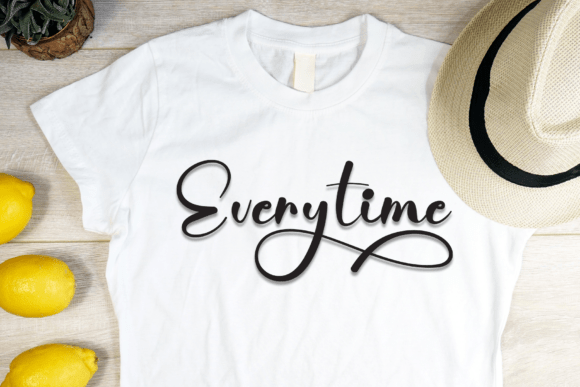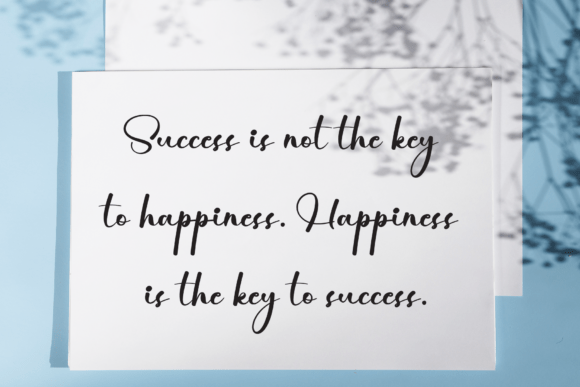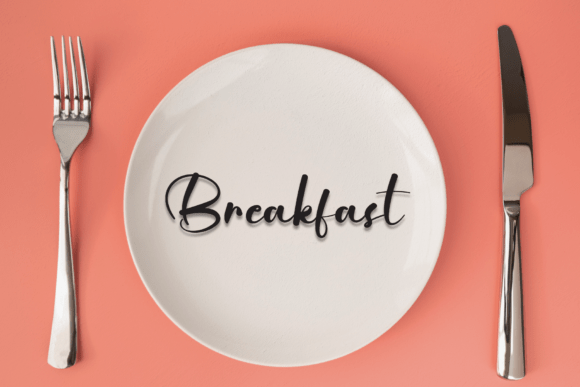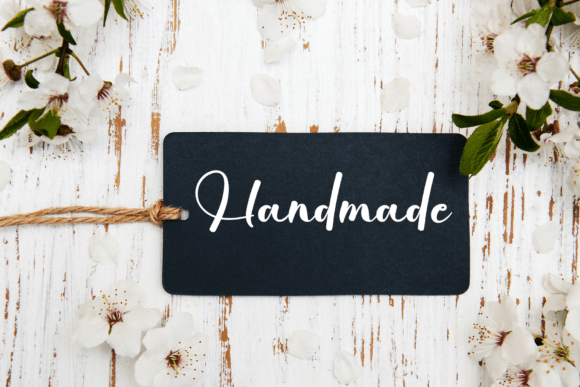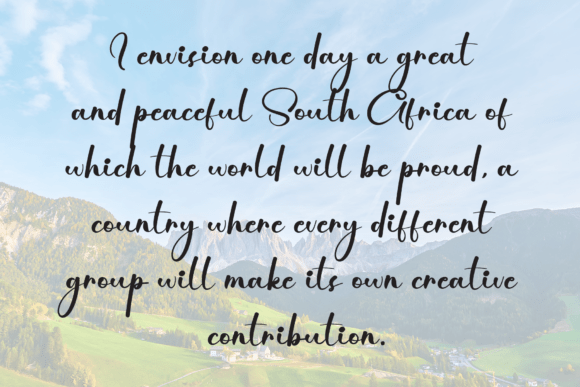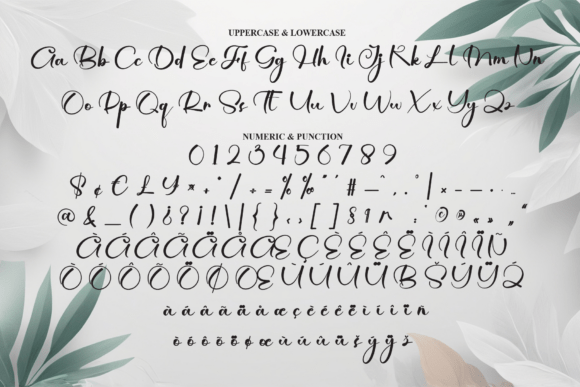
Introducing Angelina Font: The Epitome of Elegance and Playfulness
In the world of typography, few fonts manage to strike a balance between elegance and playfulness. However, Angelina Font is one such exceptional typeface that embodies both sophistication and whimsy. This stylish handwritten script font is designed to add a personal touch to various creative projects, making it a favorite among designers and crafters alike.
The Unique Charm of Angelina Font
Angelina Font is characterized by its flowing curves and natural rhythm, which give it a distinct, charming appeal. Each stroke is carefully crafted to exude a sense of warmth and sophistication, making it an ideal choice for projects that require a touch of elegance. Whether you’re working on invitations, branding materials, or social media content, Angelina Font brings a level of refinement and creativity that’s hard to match.
Key Features of Angelina Font
- Handwritten Script Style: Angelina Font boasts a beautiful, handwritten script style that’s perfect for adding a personal touch to your designs.
- Flowing Curves and Natural Rhythm: The font’s flowing curves and natural rhythm give it a unique, charming appeal that’s sure to captivate your audience.
- Elegant and Playful: Angelina Font strikes the perfect balance between elegance and playfulness, making it suitable for a wide range of creative projects.
- Versatile: This font is versatile and can be used for various design projects, including invitations, branding, social media, and more.
Why Designers and Crafters Love Angelina Font
Designers and crafters love Angelina Font for its ability to add a touch of warmth and sophistication to their projects. Here are some reasons why:
- Easy to Read: Despite its elegant and cursive nature, Angelina Font is easy to read, making it perfect for body text and headings.
- Highly Versatile: The font’s versatility allows designers and crafters to use it for a wide range of projects, from formal invitations to social media graphics.
- Unique and Creative: Angelina Font’s unique design makes it stand out from other fonts, allowing designers and crafters to create distinctive and eye-catching designs.
Using Angelina Font in Your Designs
Angelina Font can be used in various design projects, including:
- Invitations: Add a touch of elegance to your invitations, whether it’s a wedding invitation, birthday party invite, or baby shower announcement.
- Branding: Use Angelina Font to create a unique and memorable brand identity for your business or product.
- Social Media: Elevate your social media graphics with Angelina Font, making your posts stand out in a crowded feed.
- Stationery and Packaging: Add a personal touch to your stationery, packaging, and product labels with this beautiful font.
Tips for Getting the Most Out of Angelina Font
Here are some tips to help you get the most out of Angelina Font:
- Experiment with Font Sizes: Play around with different font sizes to create visual hierarchy and emphasis in your designs.
- Pair with Other Fonts: Pair Angelina Font with other fonts to create a unique and harmonious typography combination.
- Use in Combination with Images: Use Angelina Font in combination with images to create stunning visual effects and add context to your designs.
In conclusion, Angelina Font is a stylish and elegant handwritten script font that captures the essence of sophistication and playfulness. Its unique design, versatility, and charm make it an ideal choice for designers and crafters looking to add a personal touch to their projects. With Angelina Font, you can create stunning designs that exude warmth, elegance, and creativity.